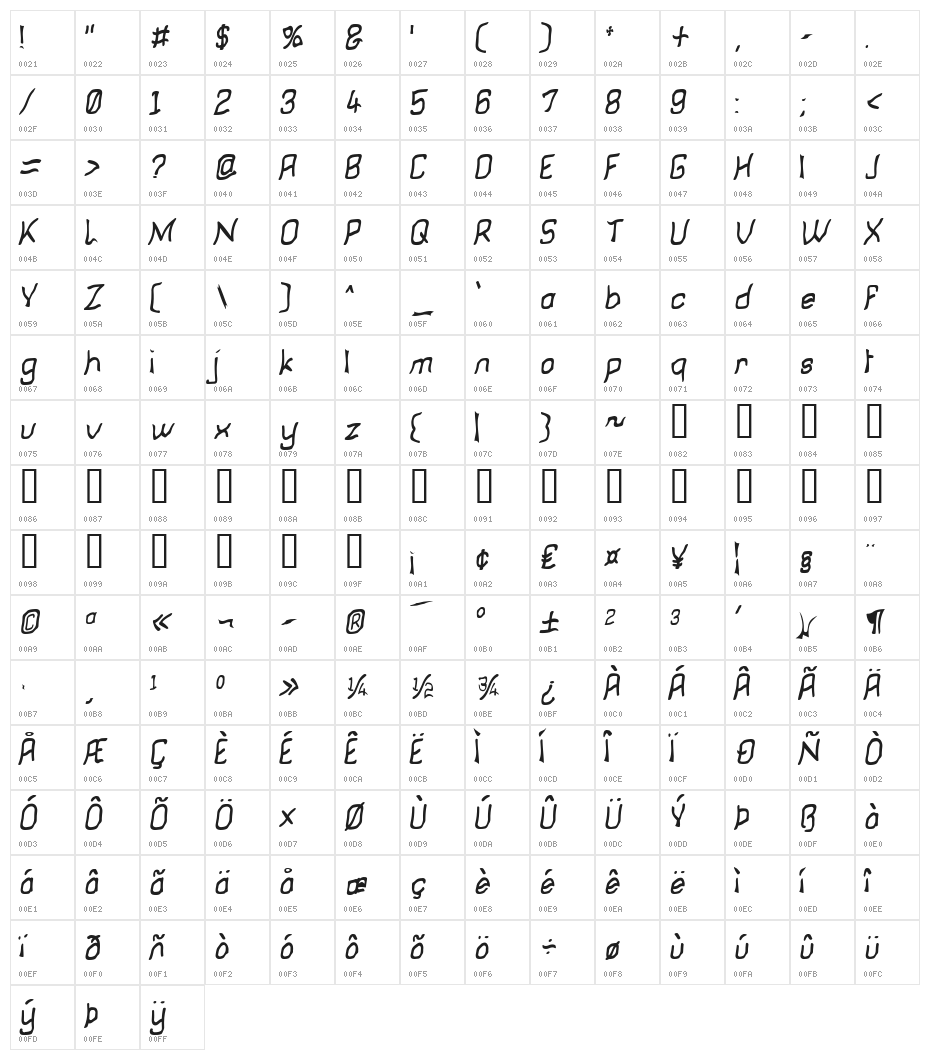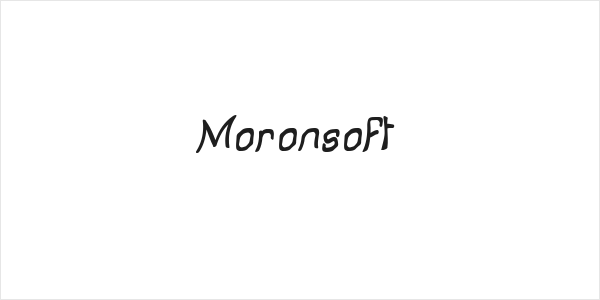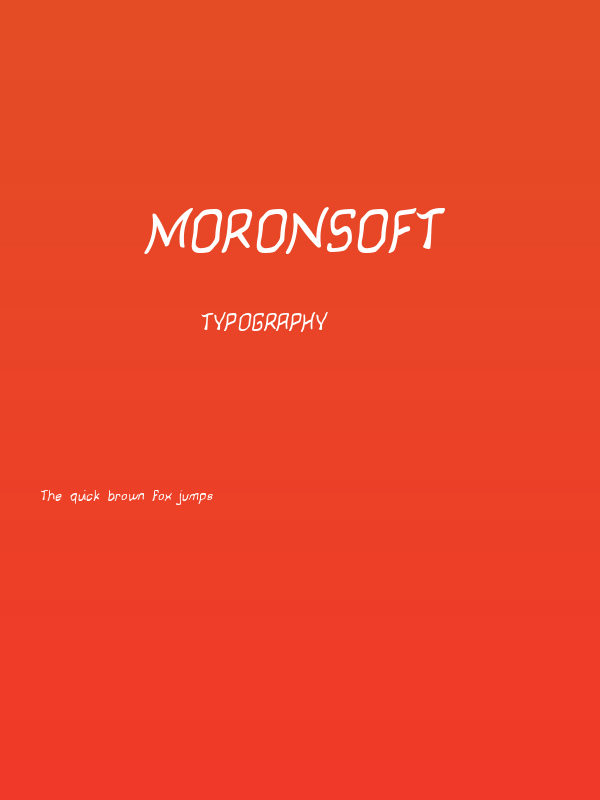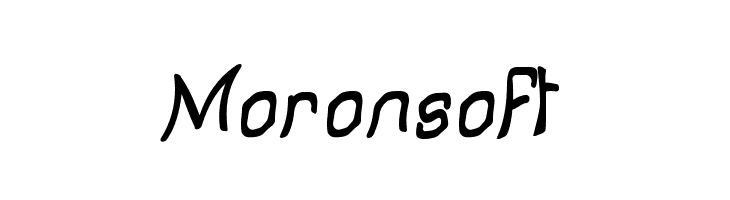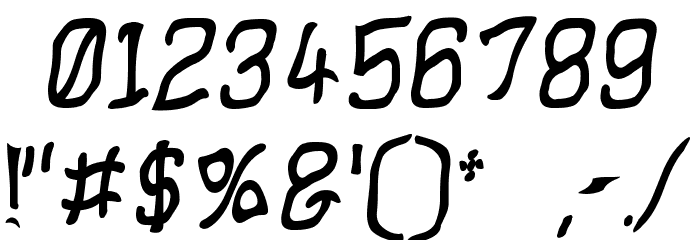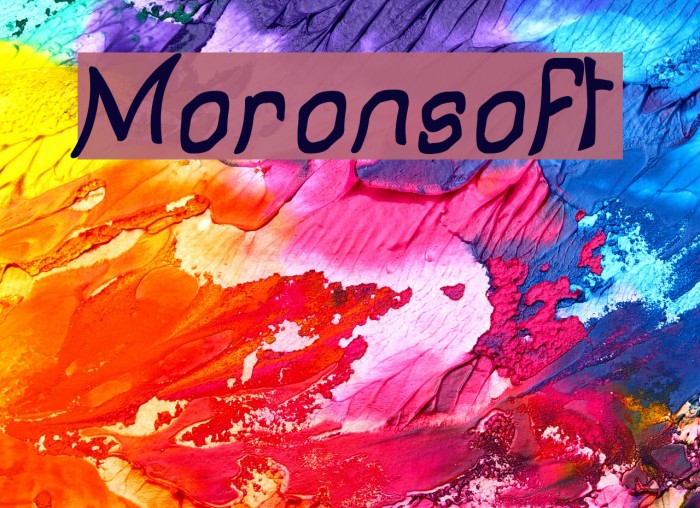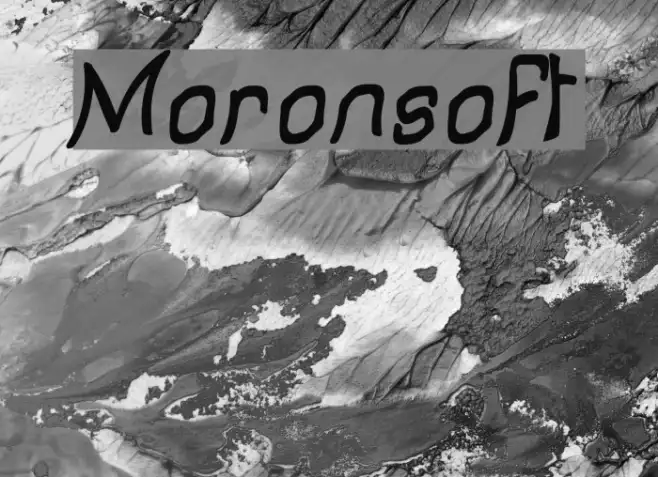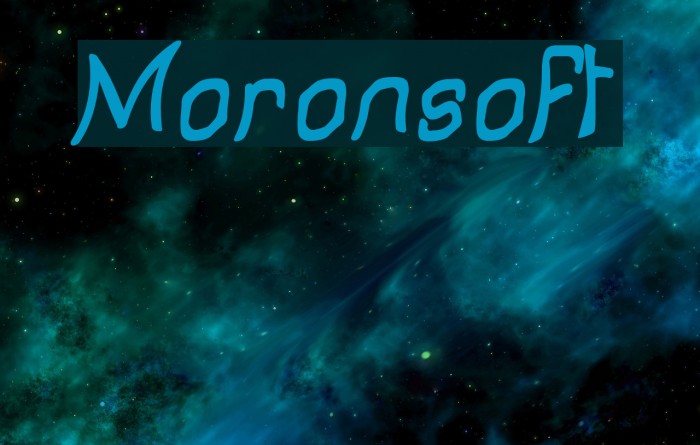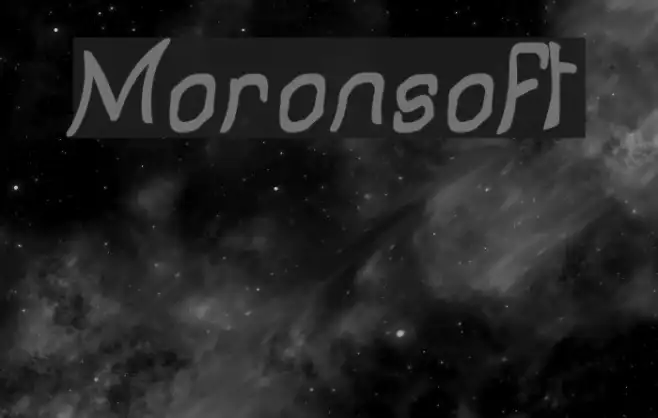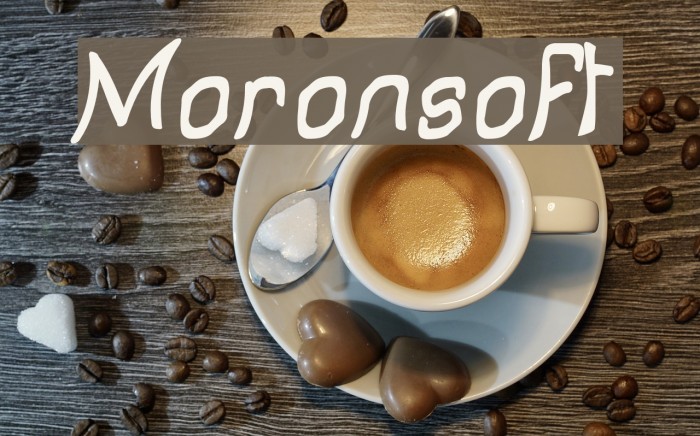
Moronsoft Font
Moronsoft Description
This font exhibits a playful and informal handwritten style, characterized by its irregular and organic letterforms. Each character appears to have been drawn with a casual, freehand approach, giving it a unique and personal touch. The strokes are uneven, with varying thicknesses that add to its dynamic and lively appearance. The font maintains a consistent baseline, yet the heights of the letters vary, contributing to its whimsical nature. The overall look is reminiscent of a doodle or sketch, making it ideal for projects that require a personal or creative flair.
| Overall Style | Casual, Playful |
| Use Case | Headlines, Informal text, Creative projects |
| Proposed Projects | Ideal for greeting cards, personal blogs, children's books, or any project needing a whimsical, creative touch. |